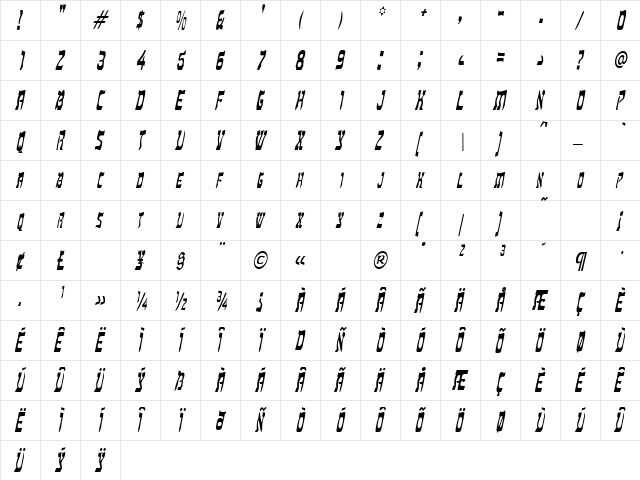
HebrewCondensed Italic Font Preview
Design Context for HebrewCondensed Typeface
HebrewCondensed takes a measured approach to typography — its balanced proportions and neutral character make it a reliable workhorse for both digital and print work. The dynamic lean of this cut emphasises speed and emphasis in any layout. The condensed width makes it efficient for tight spaces without sacrificing legibility.